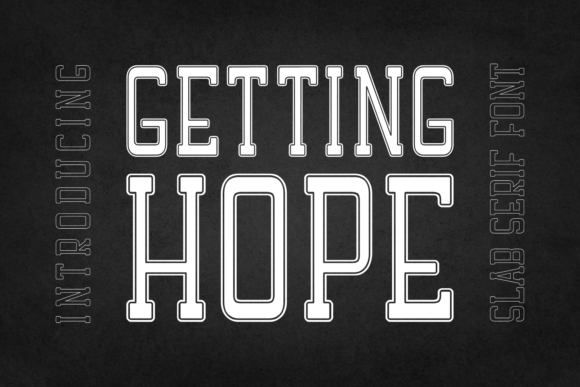
About Getting Hope Font
Getting Hope is a strong and straightforward slab serif font that exudes reliability and stability. With clean lines and a bold presence, it’s the ideal choice for projects that demand clarity and confidence. Whether you’re working on titles, headlines, or any design where a touch of strength is needed, Getting Hope delivers a sense of assurance with its sturdy and no-nonsense style. Choose Getting Hope for a font that stands tall and commands attention in any setting.